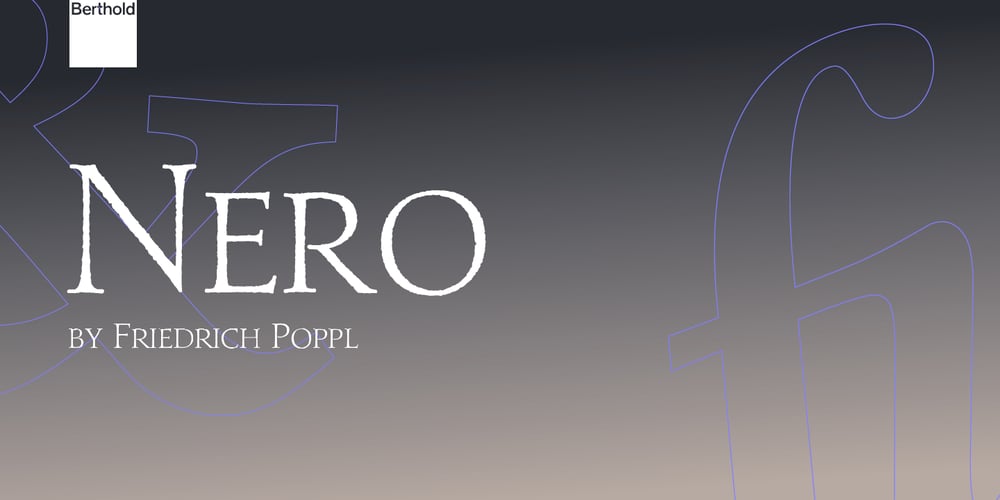
Nero Font Family was designed by Friedrich Poppl and published by Berthold. Nero contains 3 styles and family package options. Designed by Professor Friedrich Poppl (1923-1982) for Berthold in 1982, Nero is the 10th Poppl design available in digital format exclusively from Berthold. When requested by Günter Gerhard Lange to design another display typeface, Friedrich Poppl extended his calligraphic experience and title page design work to create Nero: an all-capitals alphabet with a loose outline. As with each of his typeface designs, Poppl used his typographical expertise and dedication to beauty to create a “timeless” face – pure, clear and balanced. The result is a beautiful, purposely rough, display typeface.